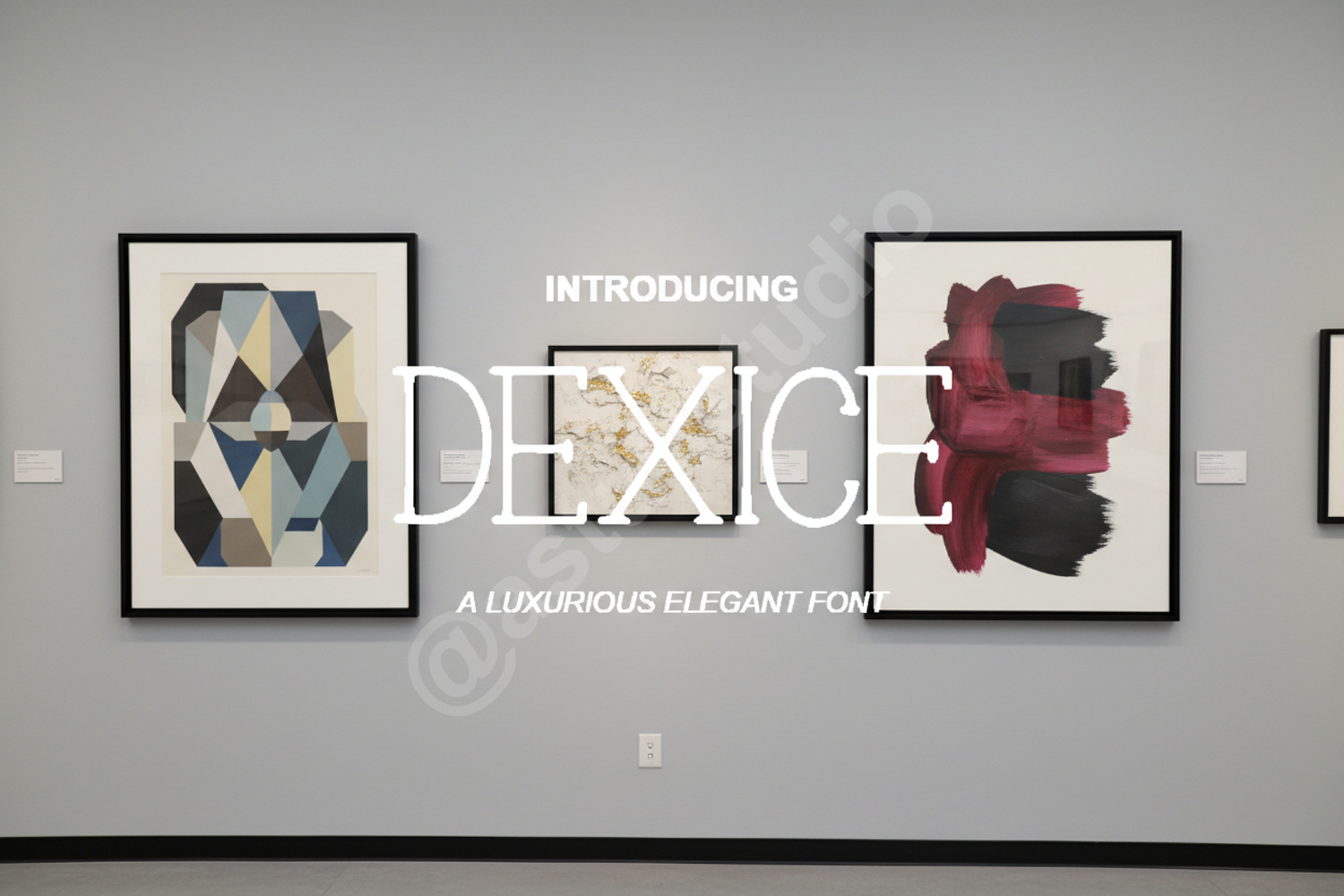
Dexice - Modern Geometric Sans Serif Typeface
Dexice
Elevate your design projects with Dexice, a premium geometric sans serif font designed for maximum impact and versatility. Boasting clean lines and a contemporary aesthetic, Dexice is crafted to provide a professional edge to any creative endeavor. Whether you are building a brand from scratch or refining an existing layout, this typeface offers the perfect balance of modern sophistication and readability.
- Full set of uppercase and lowercase letters
- Numerals and punctuation
- Comprehensive multilingual support
- Branding and Identity: Create memorable logos and high-end corporate stationery.
- Web Design: Ensure clean and legible headings for modern, user-friendly websites.
- Editorial Layouts: Ideal for magazine spreads, book covers, and professional reports.
- Social Media: Stand out with bold graphics and clean, minimalist typography.
- Advertising: Produce high-impact visuals for posters, billboards, and digital ads.